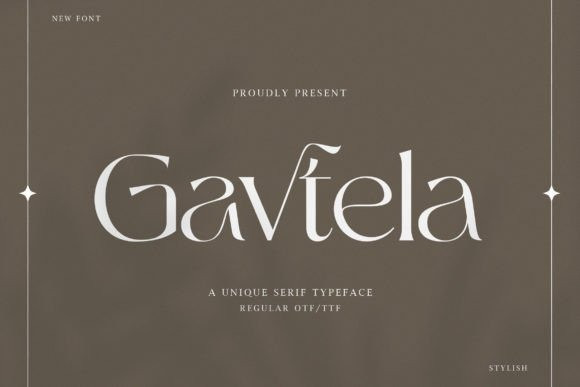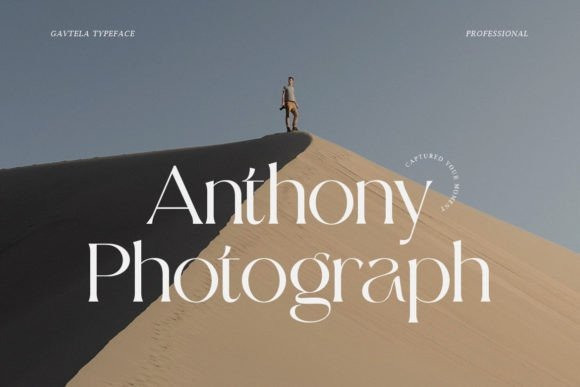
Gavtela Font
Gavtela is an expressive, stylish and elegant serif font. Its distinct and well-balanced letters make this font a masterpiece. Fall in love with its incredibly versatile style and use it to create spectacular designs!